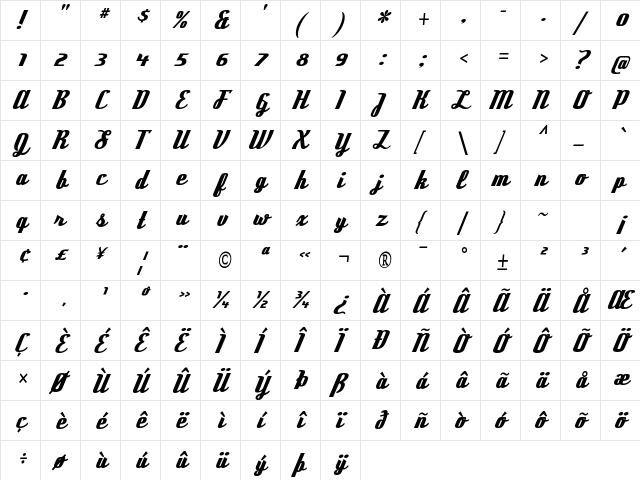
Deftone Stylus Regular
Design Context for Deftone Stylus Typeface
Deftone Stylus offers clean, dependable letterforms without strong stylistic allegiance, making it a practical choice for designers who need flexibility.